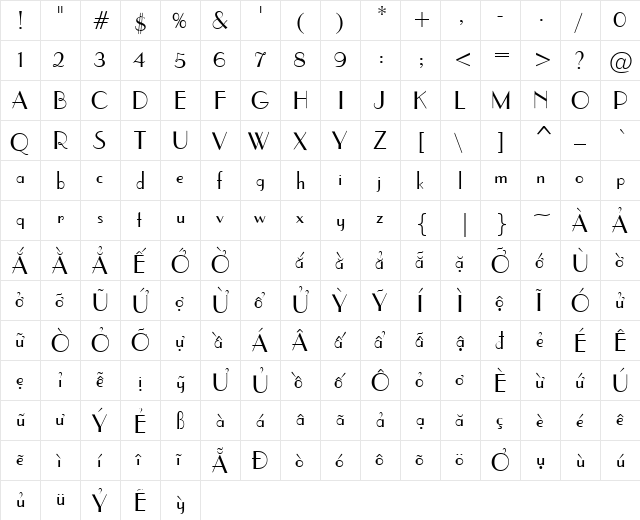
VPS Hoa Binh Normal
Design Context for VPS Hoa Binh Typeface
VPS Hoa Binh takes a measured approach to typography — its balanced proportions and neutral character make it a reliable workhorse for both digital and print work.